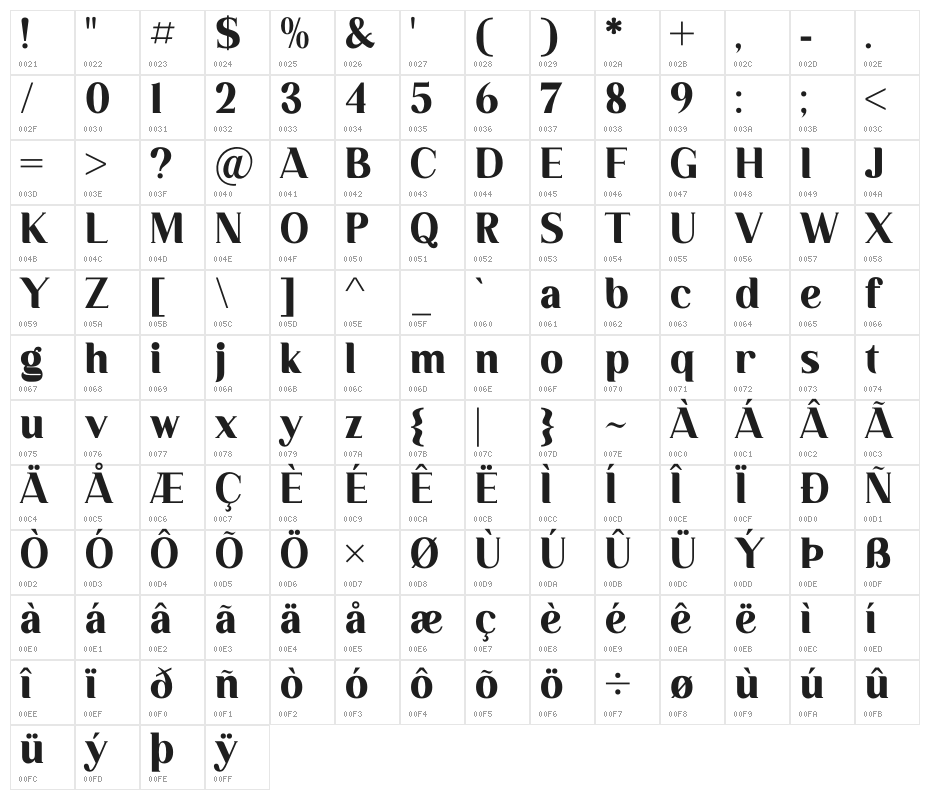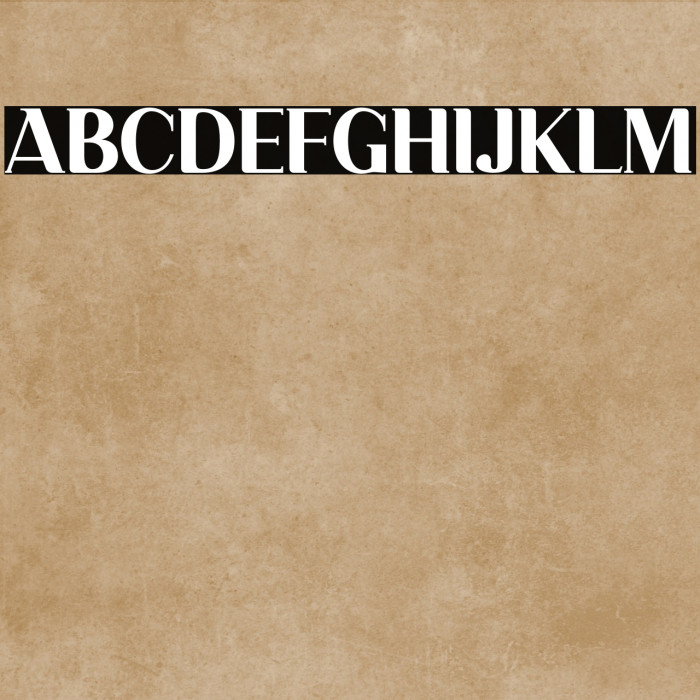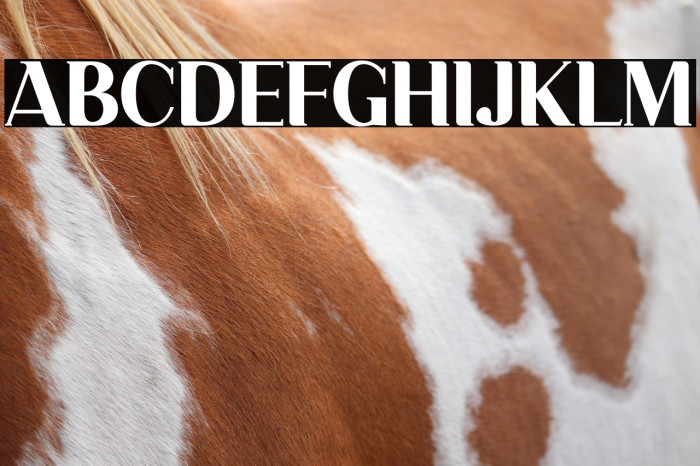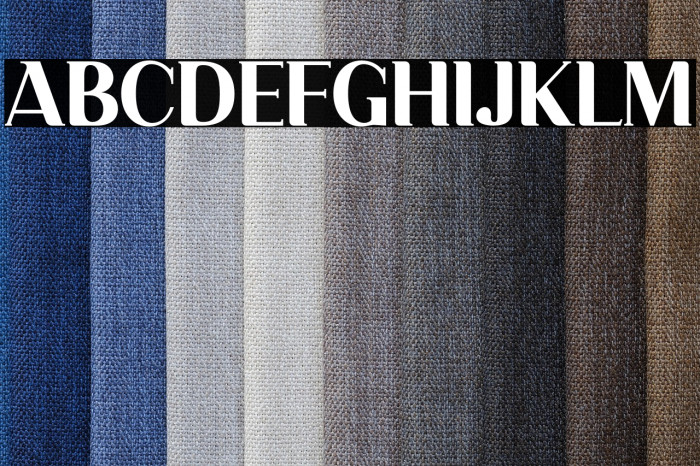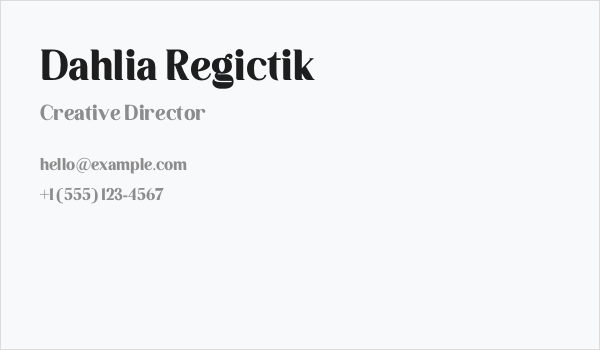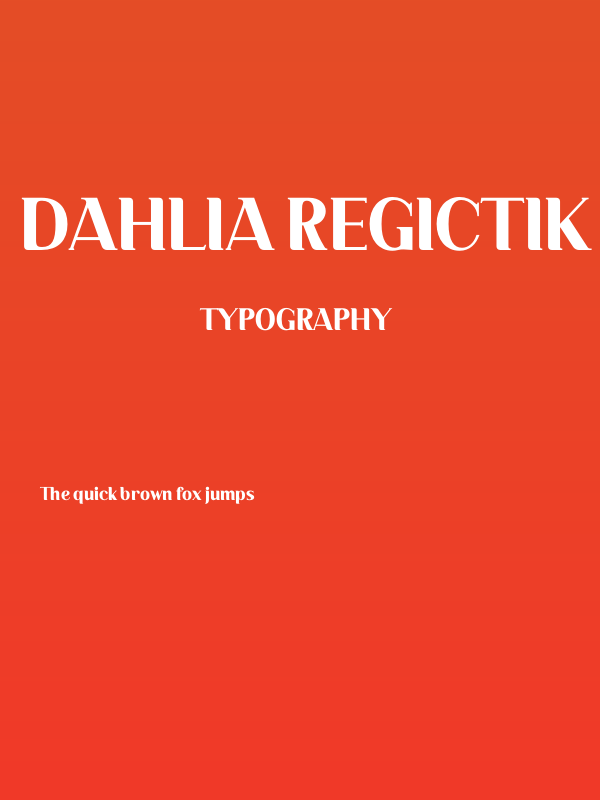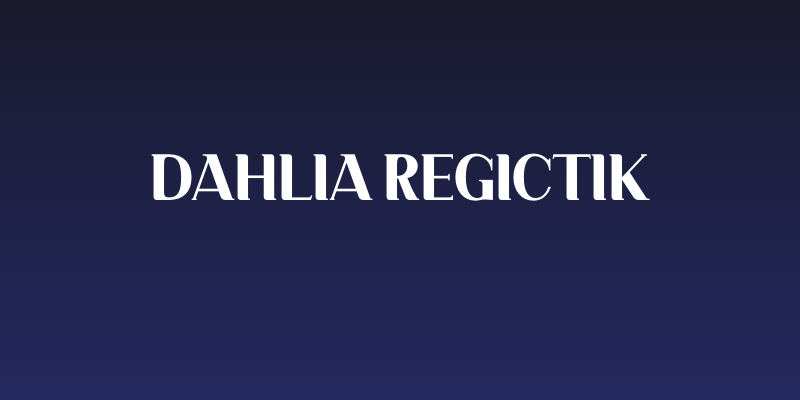
Dahlia Regictik Font
Dahlia Regictik Description
This font features a bold and striking design with high contrast between thick and thin strokes, giving it a dramatic and elegant appearance. The uppercase letters are particularly tall and commanding, while the lowercase letters maintain a consistent and harmonious flow. The numerals are robust and clear, ensuring readability. Special characters are designed with flair, adding to the font's decorative appeal. The overall style is both modern and classic, making it versatile for various design needs.
| Overall Style | Modern, Classic |
| Proposed Projects | Ideal for branding, headlines, posters, and editorial design where a strong visual impact is desired. |